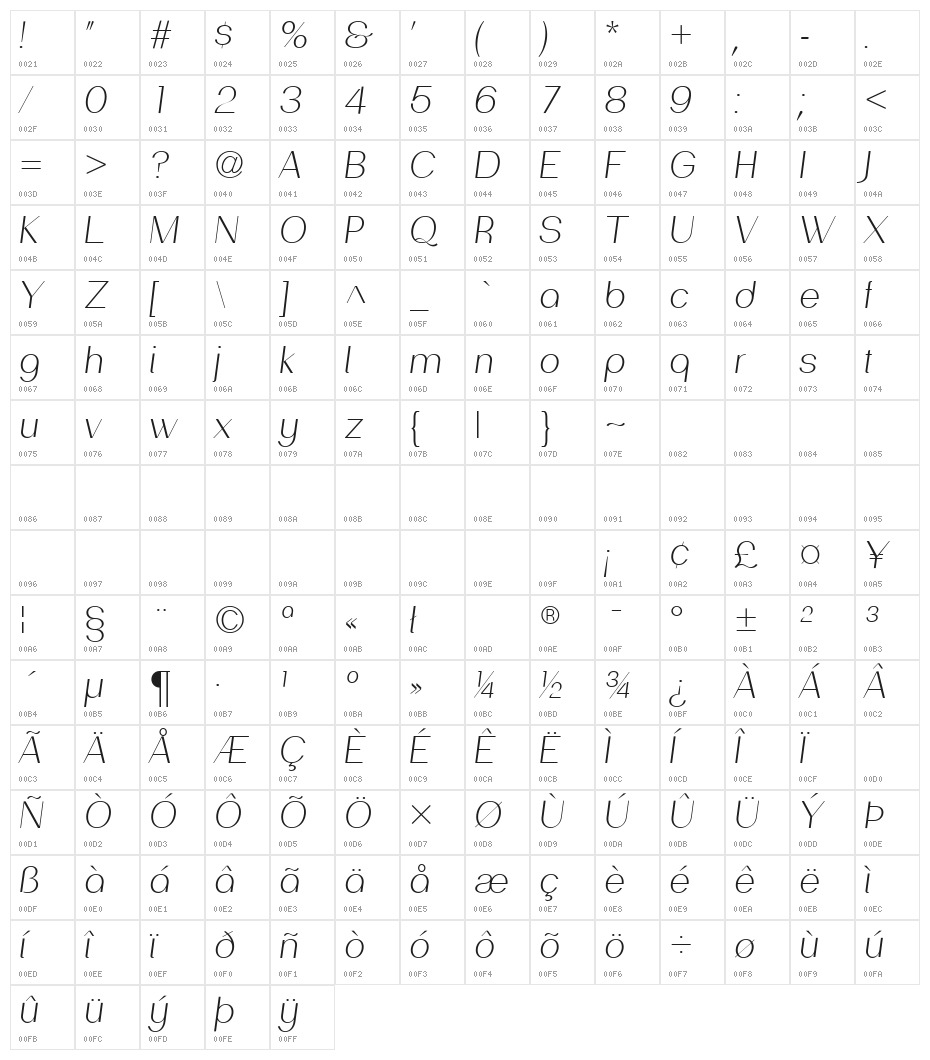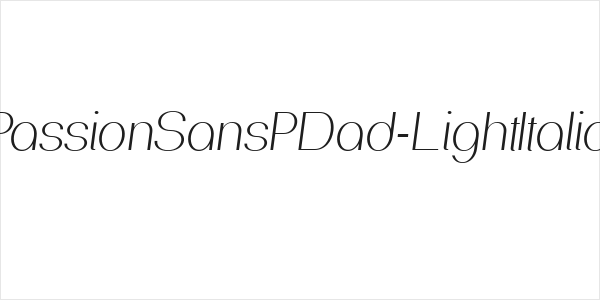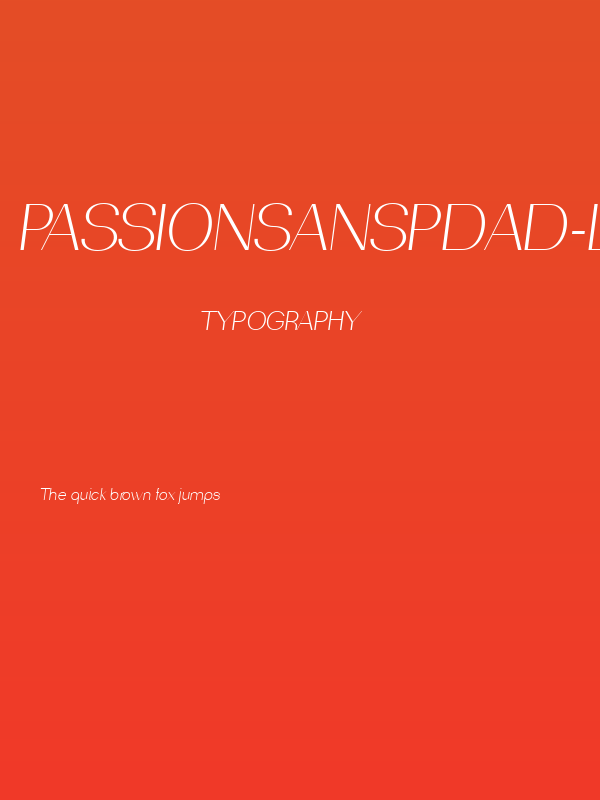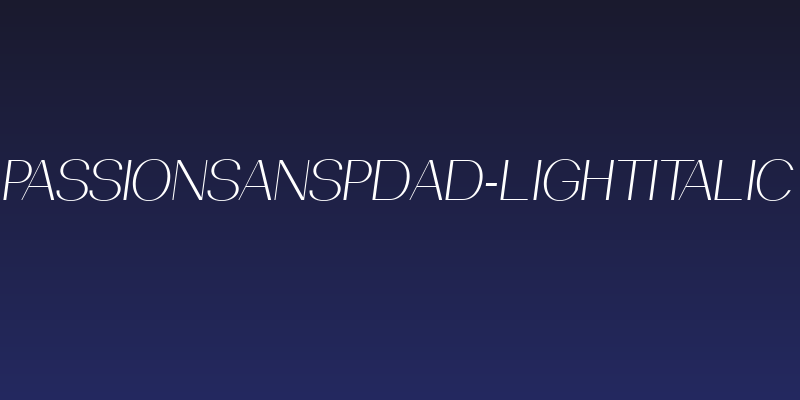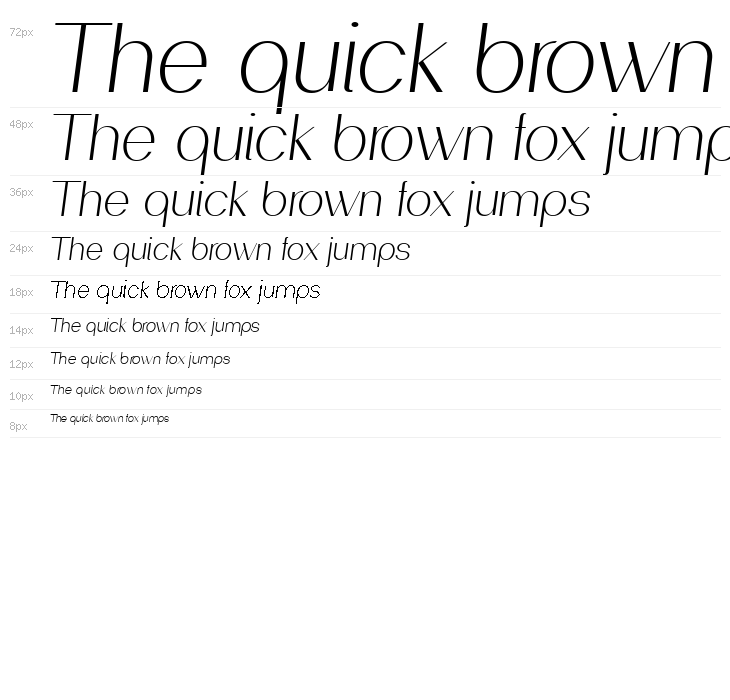
PassionSansPDad-LightItalic Font
PassionSansPDad-LightItalic Description
This font features a sleek and modern design with a light and airy feel. The characters are elegantly slanted, giving a sense of motion and sophistication. The strokes are thin and consistent, contributing to a clean and minimalist aesthetic. The uppercase and lowercase letters maintain a harmonious balance, while the numerals and special characters are crafted with precision. This font exudes a contemporary vibe, making it suitable for a variety of design applications.